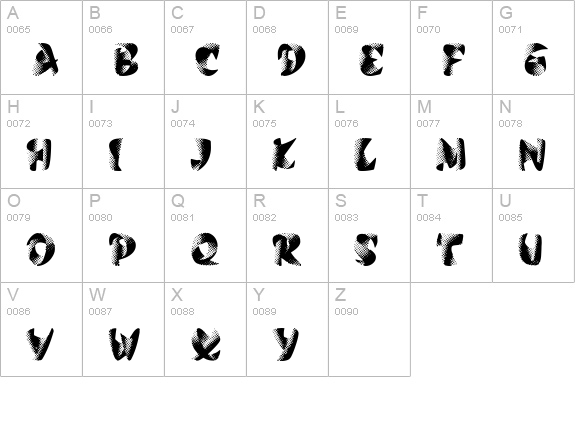
Calypso Demo font is a stunning display typeface that exudes a sense of elegance and sophistication. With its intricate details and stylish letterforms, this font is perfect for creating eye-catching designs that stand out. The versatility of Calypso Demo allows it to be used for various projects such as branding, logos, posters, and more. The best part is that Calypso Demo font is completely free to download at FontsMarket.com. This means you can enjoy all the beauty and charm of this font without having to spend a dime. Don't miss out on the opportunity to enhance your design projects with the exquisite Calypso Demo font today!